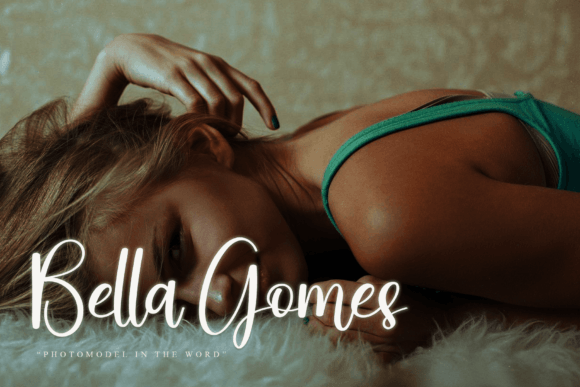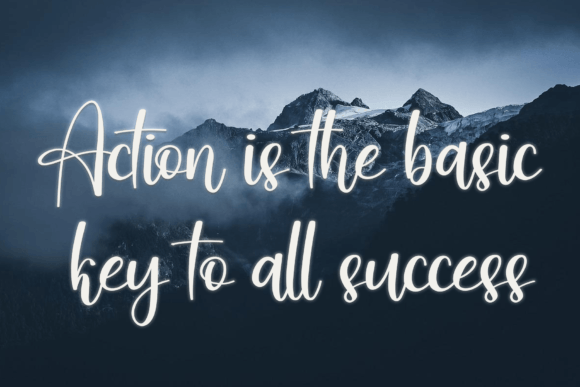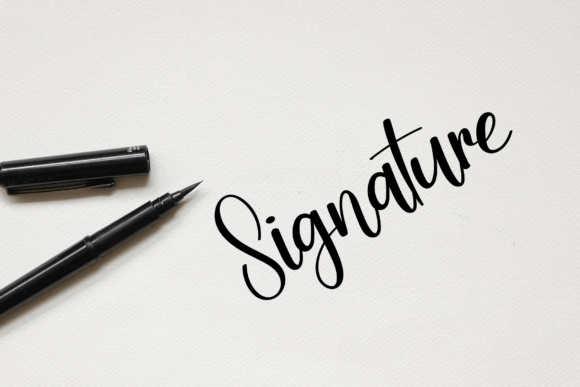
Introduction to Arloji Font
Arloji is a unique, round lettered handwritten font that was carefully crafted to produce the desired results.
This font can be used to write titles, invitations, letters, and many other types of products .
Why Choose Arloji Font?